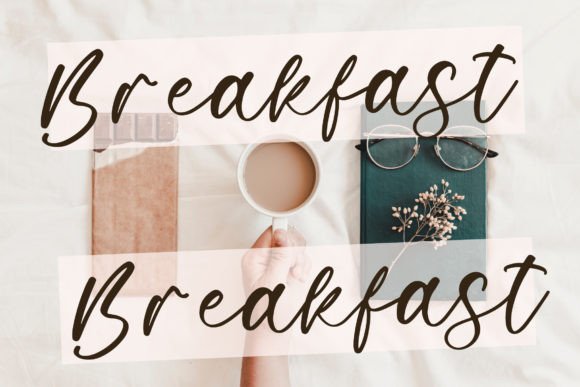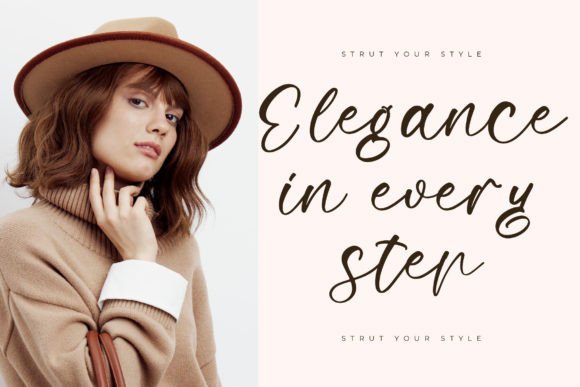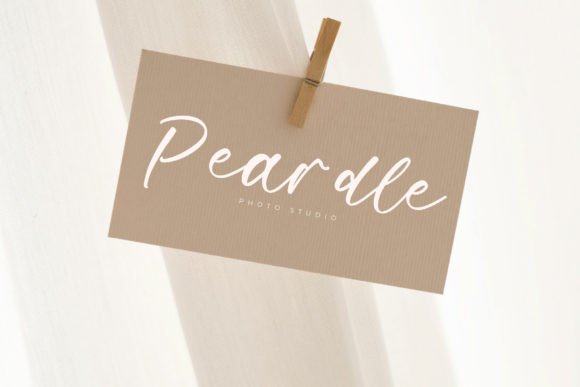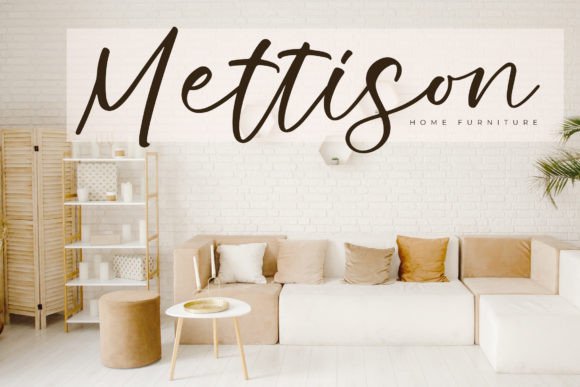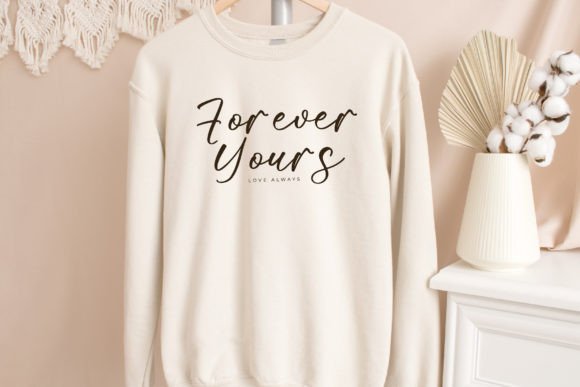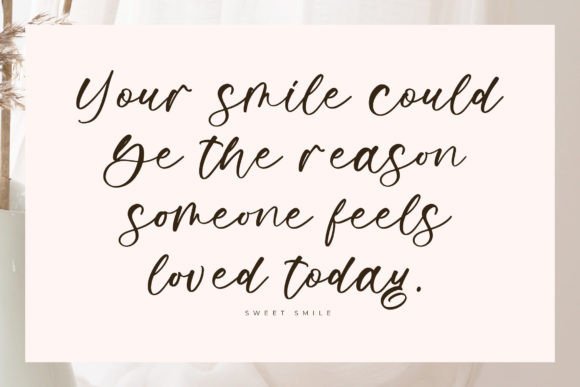
Introduction to Moltaris Rabbit Font Font
Fonts play a crucial role in design, and the Moltaris Rabbit Font font is a typeface that brings both character and versatility to any project. Whether you’re working on a branding project, a website, or a print design, the Moltaris Rabbit Font font offers a unique style that can elevate your work.
Moltaris Rabbit – Modern Handwritten Brush Font, from Integritype Studio, perfect for any project like: logos, branding projects, homewares designs, product packaging, mugs, quotes, posters, shopping bags, t-shirts, covers books, business cards, invitation cards, greeting cards, labels, photography, watermarks, special events and all your other luxury projects that require a premium taste.
Moltaris Rabbit – Modern Handwritten Brush Font, from Integritype Studio, perfect for any project like: logos, branding projects, homewares designs, product packaging, mugs, quotes, posters, shopping
Key Features of Moltaris Rabbit Font Font
Why Choose Moltaris Rabbit Font Font?
The Moltaris Rabbit Font font is more than just a typeface – it’s a design tool that helps you communicate your message with style and clarity. Its unique character set and versatile design make it suitable for a wide range of applications, from elegant invitations to bold headlines.
With its carefully crafted letterforms and balanced proportions, the Moltaris Rabbit Font font ensures readability and visual appeal across all mediums.
What makes Moltaris Rabbit Font font special?
The Moltaris Rabbit Font font stands out with its unique design, exceptional readability, and versatility across various design applications.